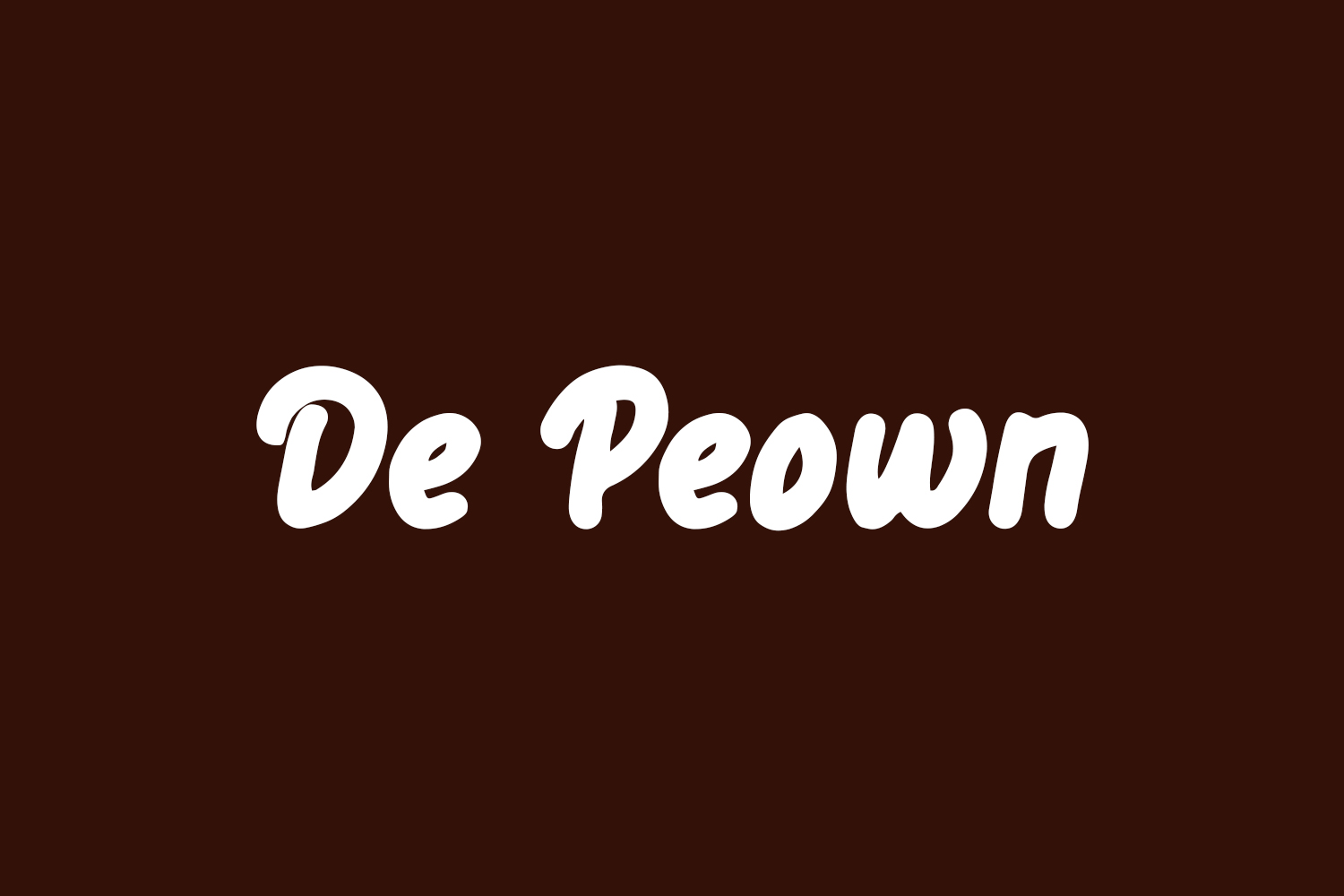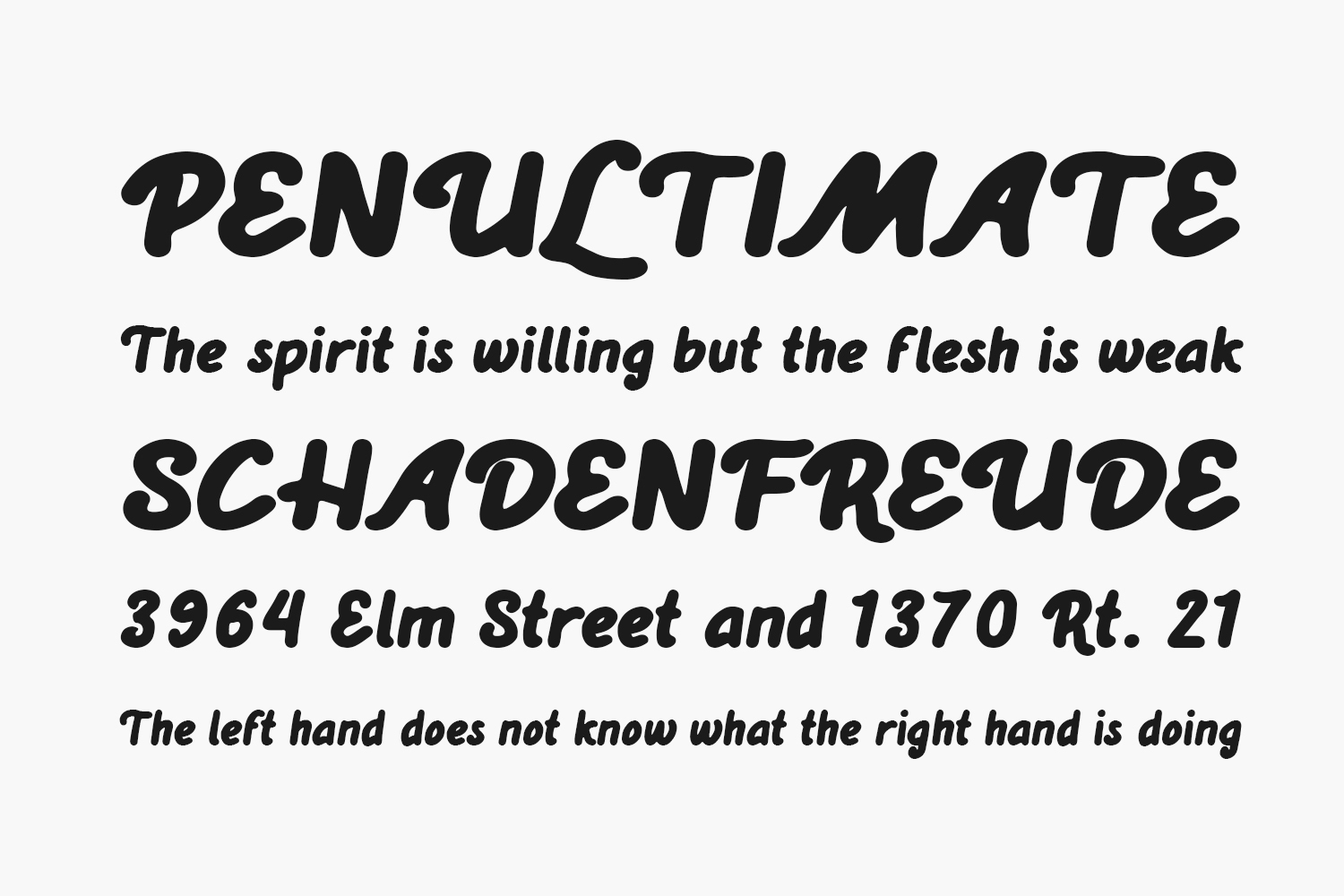
De Peown Free Font is an endearing and charming handwritten font with a distinct and natural style. Its versatility makes it a suitable choice for a wide range of designs, making it the perfect tool for unleashing your imagination. The only limitation is your creativity!
Designed by Hanna Bie